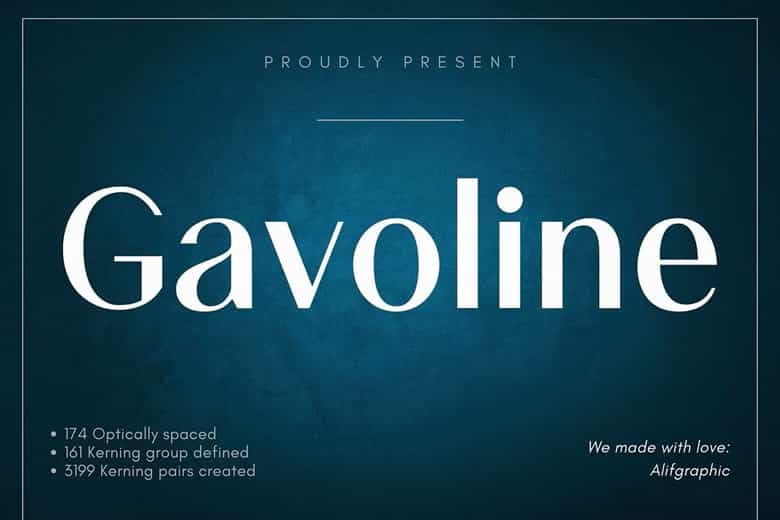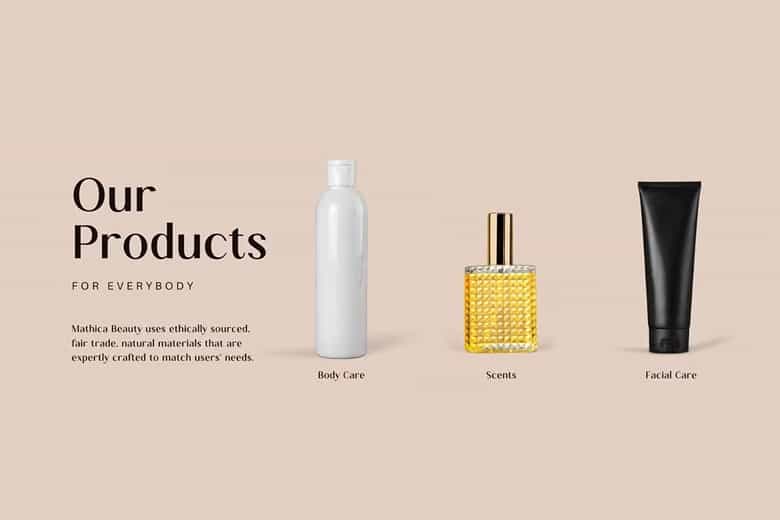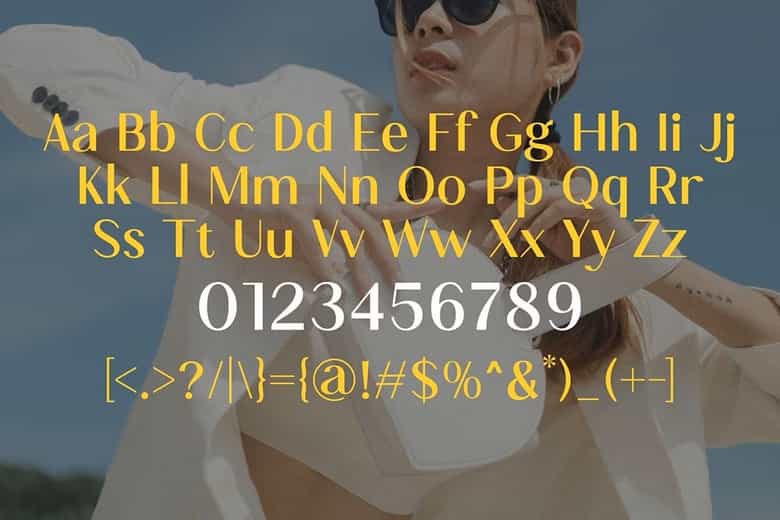
Gavoline is both elegant and bold sans serif typeface with a style you can use in many ways. Feel the elegance it offers and apply it to your wedding invitations, unique stationery, eye-opening social media posts, and many other tasks.